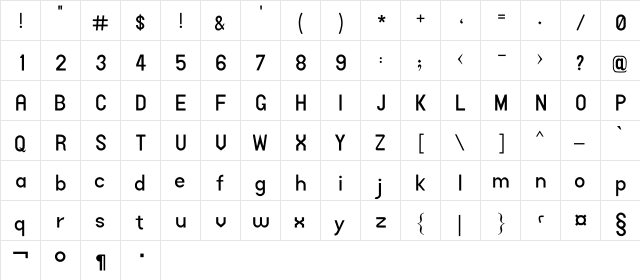
AlFars 10 Badriya Regular
| Designer | Syed Irtiza Hassan Rizvi |
Design Context for AlFars 10 Badriya Typeface
AlFars 10 Badriya takes a measured approach to typography — its balanced proportions and neutral character make it a reliable workhorse for both digital and print work.